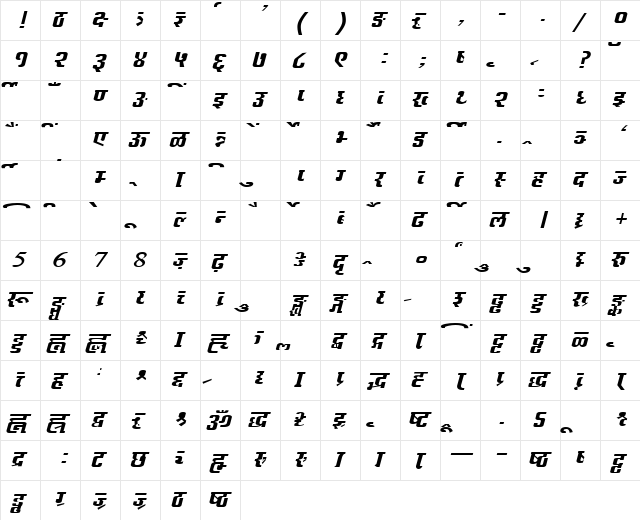
AkrutiDevAkshardhara NormalItalic
Design Context for AkrutiDevAkshardhara Typeface
AkrutiDevAkshardhara takes a measured approach to typography — its balanced proportions and neutral character make it a reliable workhorse for both digital and print work. Its italic angle brings a sense of urgency and motion to the letterforms.
Pro Tip: Use AkrutiDevAkshardhara for emphasis, pull quotes, and subheadings where its slanted energy can add rhythm to the layout.